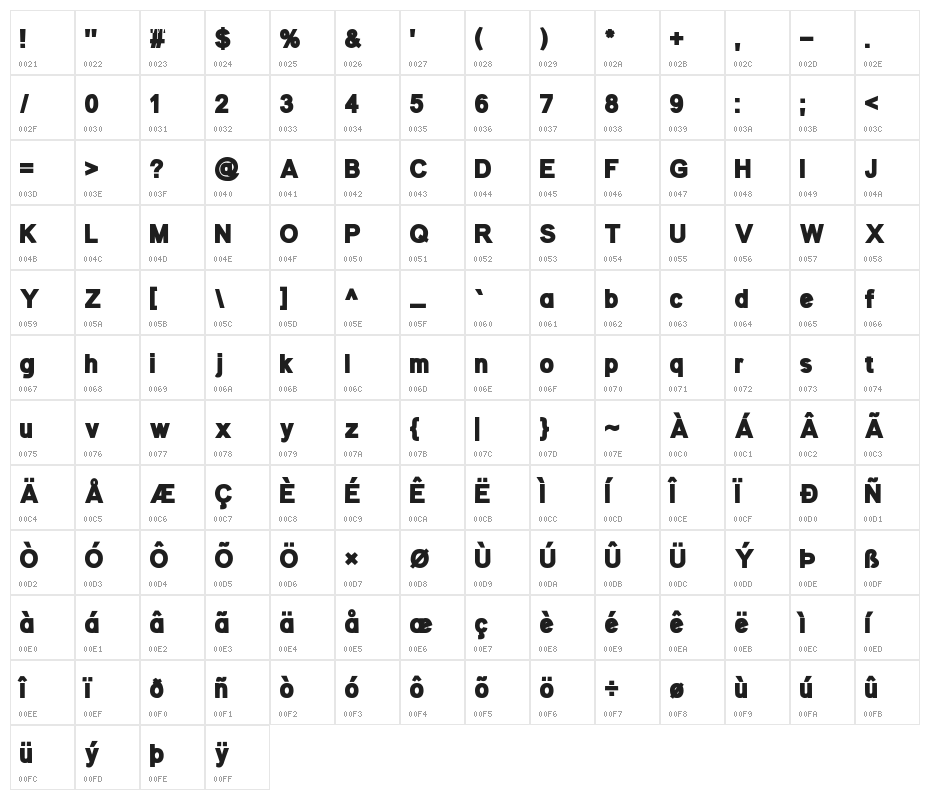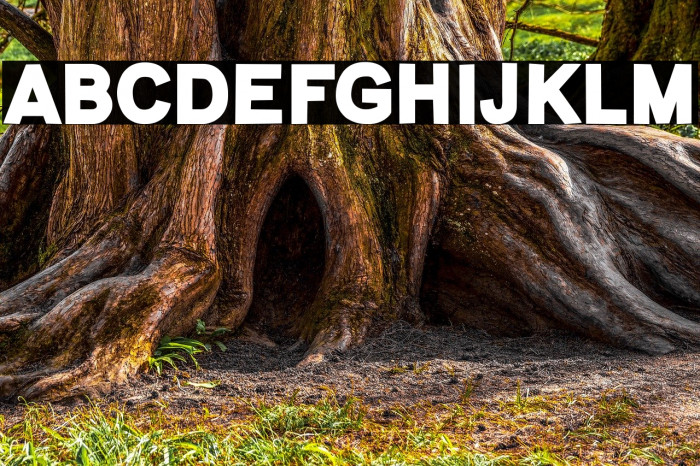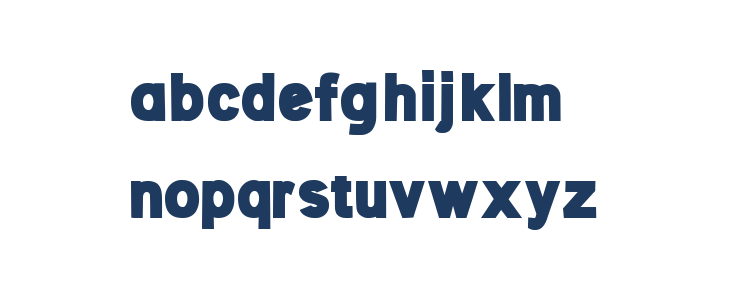
Stroud Font
Stroud Description
This font is characterized by its bold, strong presence, making it ideal for impactful headlines and attention-grabbing designs. The characters are uniformly thick, with a consistent stroke width that conveys a sense of stability and confidence. The uppercase and lowercase letters are well-proportioned, maintaining a harmonious balance across the alphabet. The numerals are clear and easy to read, while the special characters are distinct and well-defined. This font's robust design ensures legibility at various sizes, making it versatile for both print and digital media.
| Proposed Projects | Suitable for branding, advertising, posters, and any project requiring a strong visual impact. |